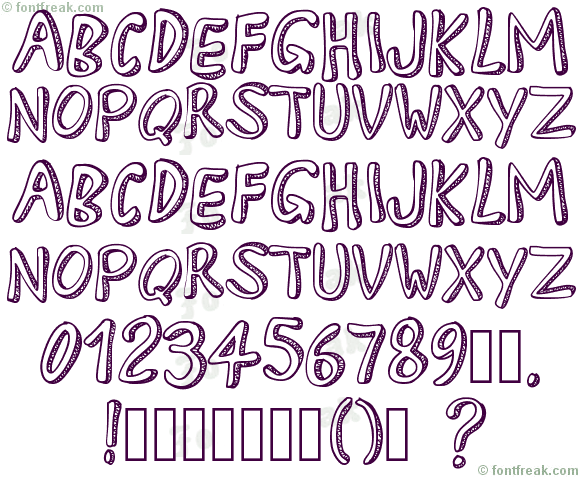
PWApril
About PWApril
PWApril by Peax Webdesign is a delightful display font that effortlessly fuses playful charm with a modern aesthetic. This font falls under the decorative category, characterized by its unique handwritten style. The letters exhibit a whimsical, slightly irregular stroke weight, giving the typeface a friendly and approachable vibe. The contrast between thick and thin strokes adds visual interest, while the generous spacing between characters enhances readability, making it perfect for various design applications.
One of the standout features of the PWApril font is its decorative elements, which include charming loops and subtle embellishments that evoke a sense of creativity and fun. This makes it particularly well-suited for use cases such as wedding invitations, where a personal touch is essential; children's book covers, which benefit from its playful nature; quirky restaurant menus that aim to capture the essence of a lively dining experience; and promotional materials for creative events or workshops, where engaging typography can draw in the audience.
Target audiences for this font include graphic designers looking to inject personality into their projects, small business owners seeking distinctive branding elements, and content creators eager to enhance their visual storytelling. The versatility of the PWApril font allows it to adapt to various themes and styles, making it a valuable addition to any designer's toolkit.